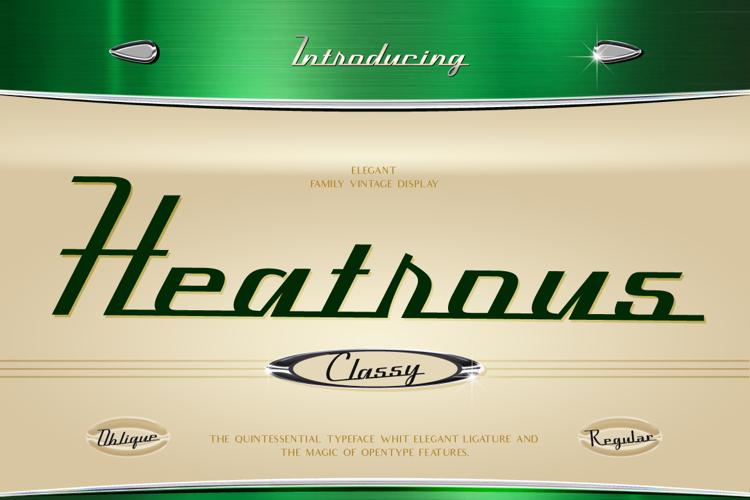
Heatrous Font
Oblique Style
Heatrous is a classy vintage display font with bold strokes, elegant ligatures, and timeless retro vibes—perfect for standout designs.